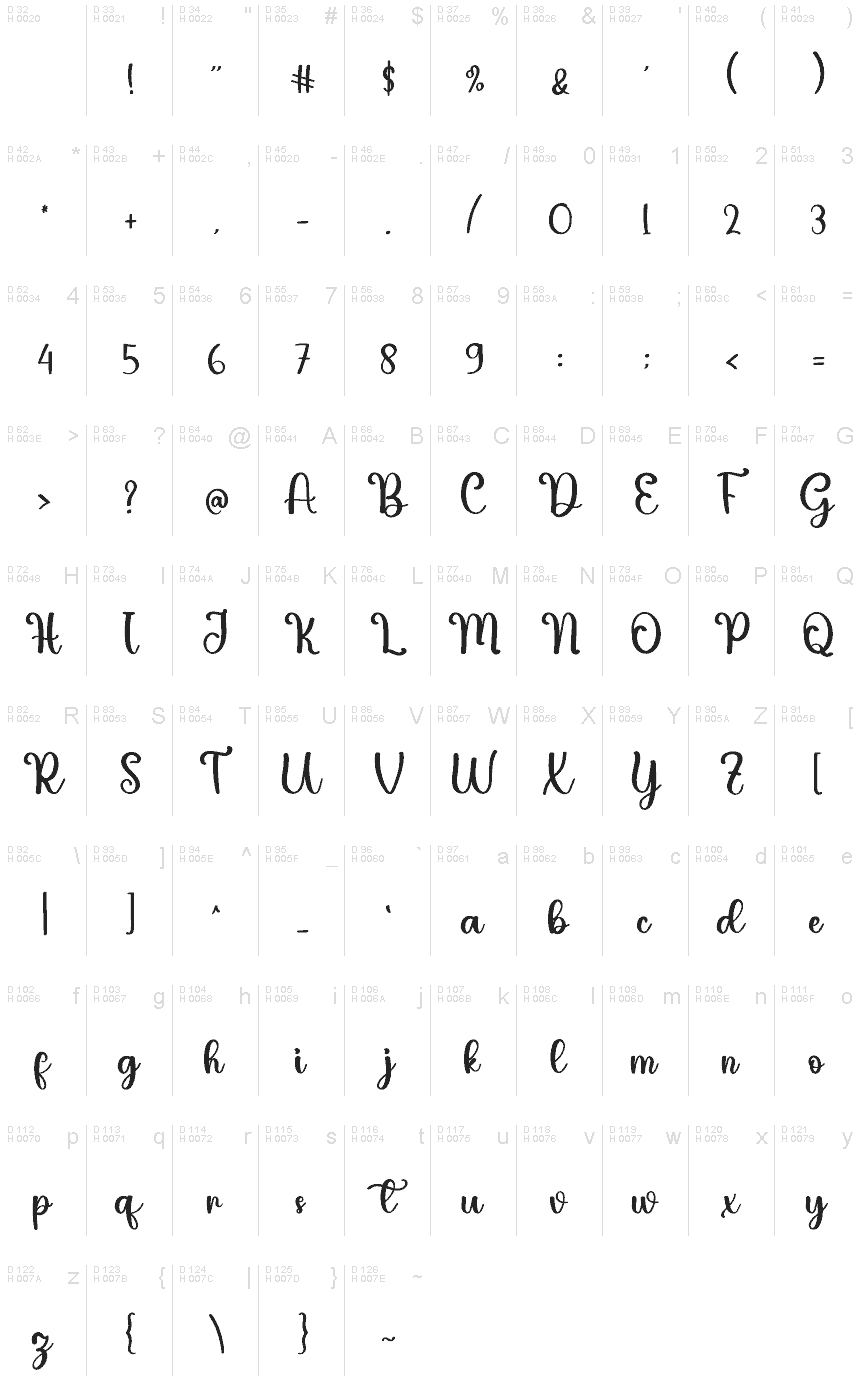
Black Girls
Black Girls font by PiPi Creative is a stylish and expressive handwritten typeface with elegance at its core. Letters flow gracefully from one to the other in this modern script design, creating a visual charm that cannot be denied. Decorate your branding and typography project ideas with this free handwritten font which will deliver only outstanding results.
Use Black Girls in invitations, greeting cards, business cards, branding designs, signs, posters, wallpapers, logs etc. The downloadable resource also comes with a bonus ornament for an even smoother experience.